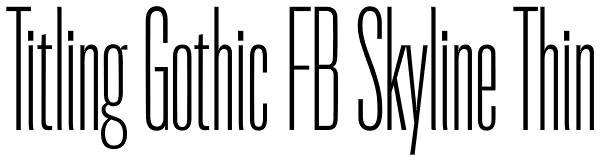
Titling Gothic FB
"FB Titling Gothic" is an expansive font collection, offering nearly fifty styles, each meticulously crafted to pay homage to the century-old classic, ATF Railroad Gothic. This font series is a modern reinterpretation of a timeless favorite, designed to meet the diverse needs of contemporary typography. With its array of options including condensed, thick, thin, and wide styles, "FB Titling Gothic" is tailor-made for impactful titling and headline creation. It's a go-to choice for designers seeking to convey strength and clarity in their work, ensuring that titles and headers are not just seen but remembered. Despite its rich variety in weight and width, "FB Titling Gothic" remains true to its roots by not offering italic or slanted variants, a nod to the straightforward and unembellished style of its historical inspiration. This deliberate choice accentuates the font’s bold and straightforward character, making it ideal for a wide range of applications, from corporate branding to editorial headlines.